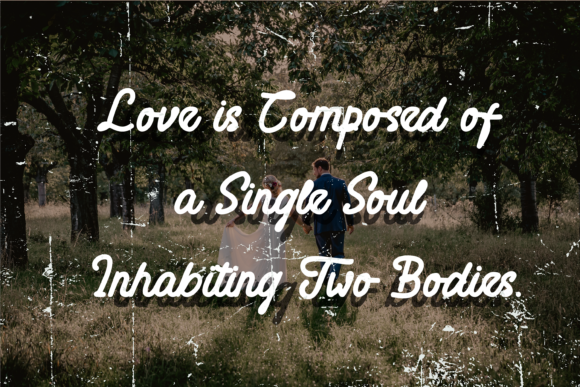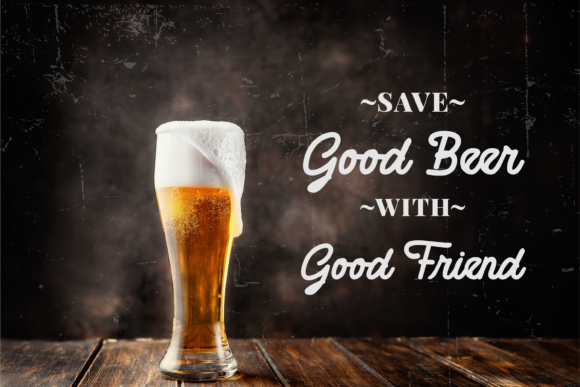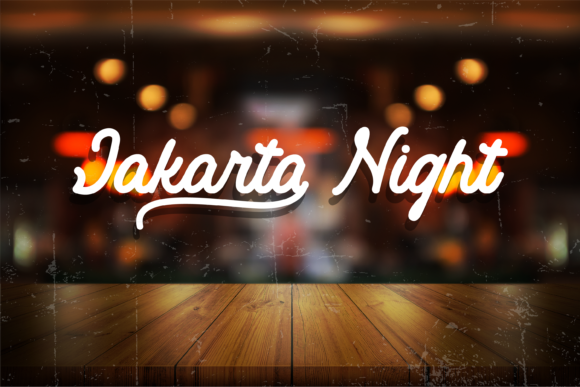
Introduction to Maguiston Font
Imagine you’re working on a creative project, pouring your heart and soul into every detail, and you need the perfect font to bring it all together. That’s when you stumble upon the perfect design resource – a high-quality, vintage styled script font that instantly elevates your work. The Maguiston Font is one such treasure, and in this article, we’ll delve into its world to explore what makes it so special.
For designers, finding the right font can be a game-changer. It’s not just about aesthetics; a well-chosen font can convey the tone and message of your project, making it an essential part of your creative toolkit. With the Maguiston Font, you can add a touch of elegance and sophistication to your designs, from fashion branding to editorial layouts.
Key Features of Maguiston Font
- High-quality design resource suitable for creative projects, offering a unique and elegant touch.
- Features a transparent background, allowing for seamless integration with any design or image.
- Designed with a resolution of 300 DPI, making it suitable for high-resolution printing and digital use.
- Perfect for designers, artists, and creatives looking for a high-quality, versatile font for their next project.
Honest Review: Maguiston Font
I recently stumbled upon the Maguiston Font and I must say it’s been a game-changer for my design projects. As a designer, I’m always on the lookout for high-quality design resources that can elevate my work. And, I’m glad to say that Maguiston Font delivers.
Here’s what I love about it: ✨
- Unique and creative design: The font has a quirky, playful feel that’s perfect for creative projects.
- Transparent background: The font’s transparent background makes it easy to use on any design surface.
However, I do have a few limitations to mention: ⚠️
- Not ideal for formal projects: While it’s great for creative projects, I wouldn’t recommend using it for formal or professional designs.
- Limited font sizes: I’ve noticed that the font doesn’t render well at very large or very small sizes.
Overall, I’m really impressed with the Maguiston Font. It’s a fantastic design resource that’s perfect for designers who want to add a bit of whimsy to their work. I’d definitely recommend giving it a try.
The Maguiston Font is perfect for a variety of creative projects, including:
- Brochures and flyers
- Presentations and reports
Alex Brush has a more delicate and feminine look compared to Maguiston Font, making it suitable for feminine and elegant designs. It’s available for free download and features a transparent background, making it easy to customize and integrate into any design resource.
Does the Maguiston Font have a transparent background?
Yes, the Maguiston Font has a transparent background, making it easy to use with various design elements and backgrounds. This feature is especially useful for designers working on creative projects that require a high level of customization.